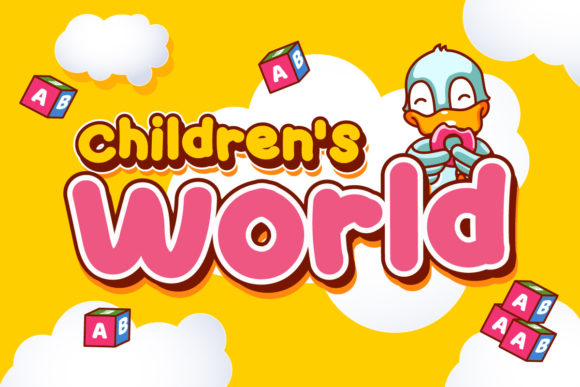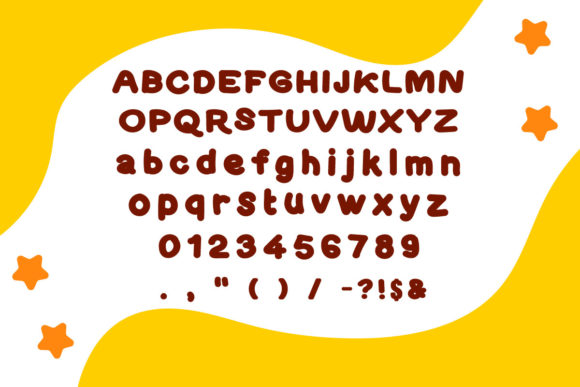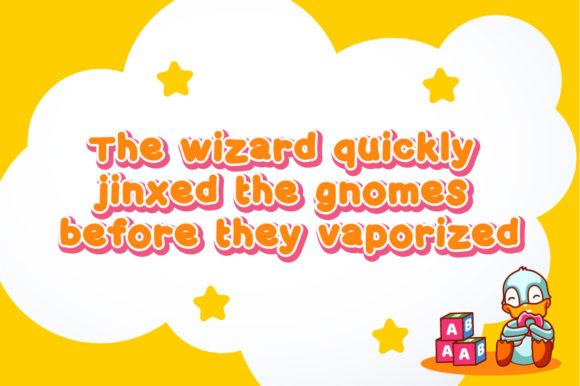
Introducing Boldchild Font: The Ultimate Display Font for Friendly Designs
Are you tired of using the same old fonts for your designs, crafts, and digital projects? Look no further than Boldchild Font, a childish and easy-to-read display font that’s perfect for conveying impeccable friendliness. In this article, we’ll dive into the world of Boldchild Font and explore its features, benefits, and uses, making it a must-have for designers, crafters, and anyone looking to add a touch of personality to their work.
What is Boldchild Font?
Boldchild Font is a display font designed to bring a sense of fun and playfulness to your designs. With its bold and rounded letters, this font is perfect for creating eye-catching headlines, titles, and captions that are sure to grab attention. Whether you’re working on a digital project, crafting a greeting card, or creating a presentation, Boldchild Font is the perfect choice for adding a touch of whimsy and friendliness.
Key Features of Boldchild Font
- Childish and playful design: Boldchild Font features a unique and childish design that’s perfect for creating fun and engaging designs.
- Easy-to-read: Despite its bold and playful design, Boldchild Font is surprisingly easy to read, making it perfect for use in digital and print designs.
- Versatile: Boldchild Font is versatile and can be used for a wide range of projects, from crafts and digital design to presentations and greeting cards.
- Impeccable friendliness: The font’s friendly and approachable design makes it perfect for creating designs that are welcoming and engaging.
Benefits of Using Boldchild Font
So, why should you choose Boldchild Font for your next project? Here are just a few benefits of using this amazing font:
- Adds personality to your designs: Boldchild Font is the perfect way to add a touch of personality and whimsy to your designs, making them stand out from the crowd.
- Perfect for kids’ projects: The font’s childish design makes it perfect for use in kids’ projects, such as children’s books, educational materials, and kids’ crafts.
- Great for digital design: Boldchild Font is optimized for digital use, making it perfect for use in social media graphics, website headers, and other digital designs.
- Easy to pair with other fonts: The font’s bold and playful design makes it easy to pair with other fonts, allowing you to create unique and interesting typography combinations.
Uses for Boldchild Font
So, what can you use Boldchild Font for? The possibilities are endless! Here are just a few ideas to get you started:
- Crafts: Use Boldchild Font to add a personal touch to your crafts, such as greeting cards, scrapbooking, and DIY projects.
- Digital design: Use Boldchild Font to create eye-catching social media graphics, website headers, and other digital designs.
- Presentations: Add a touch of personality to your presentations with Boldchild Font, making them more engaging and fun to watch.
- Greeting cards: Use Boldchild Font to create fun and playful greeting cards for any occasion.
In conclusion, Boldchild Font is a versatile and fun display font that’s perfect for designers, crafters, and anyone looking to add a touch of personality to their work. With its childish and easy-to-read design, impeccable friendliness, and wide range of uses, Boldchild Font is sure to become your go-to font for all your design needs. So why wait? Give Boldchild Font a try today and see the difference it can make in your designs!